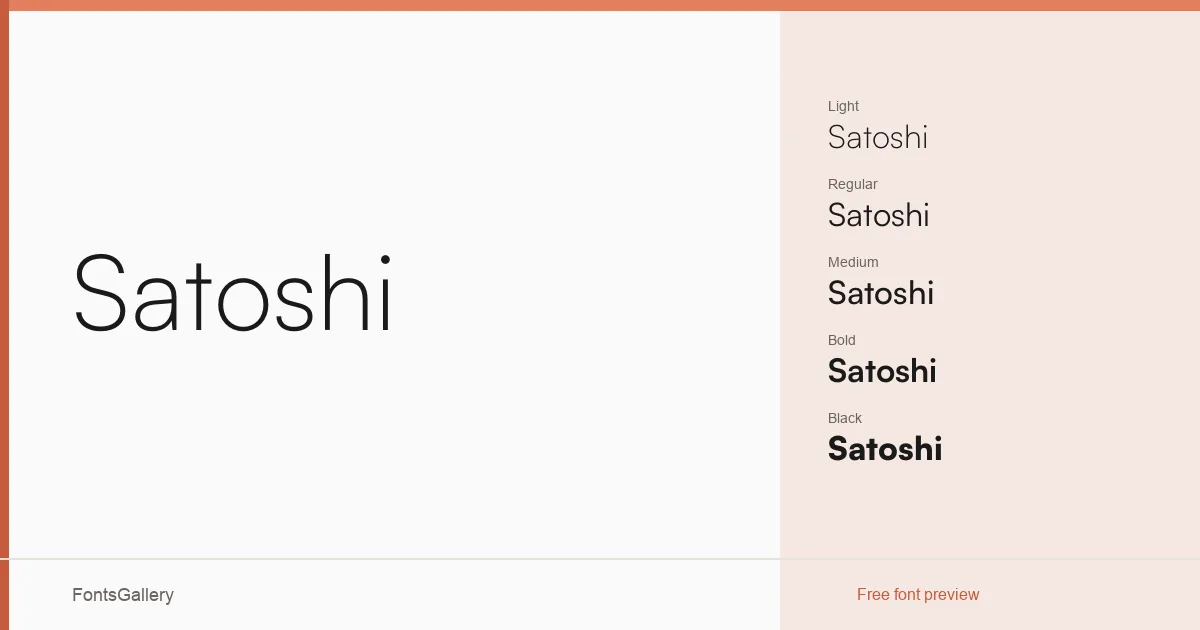
About Satoshi Font
Satoshi is a contemporary sans serif typeface designed by Deni Anggara and released through Indian Type Foundry. It embodies a clean, modern sensibility that makes it a compelling choice for designers seeking precision and impact. With its confident structure and refined simplicity, Satoshi stands out as a versatile workhorse for high-visibility design work.
Satoshi's letterforms are rooted in a minimal, professional aesthetic, featuring clean geometric construction and bold visual presence that commands attention. The typeface balances modern proportions with strong stroke consistency, lending it a polished and authoritative character. Its clarity and restraint make it equally effective at large display sizes as it is across digital interfaces.
Satoshi excels in high-impact applications such as posters, advertisements, website headers, branding systems, and editorial headlines where a bold, modern tone is desired. Its strong visual personality ensures legibility and presence across both print and digital mediums. For a compelling typographic combination, consider pairing Satoshi with Aresink or Ballmain to create dynamic and well-balanced layouts.